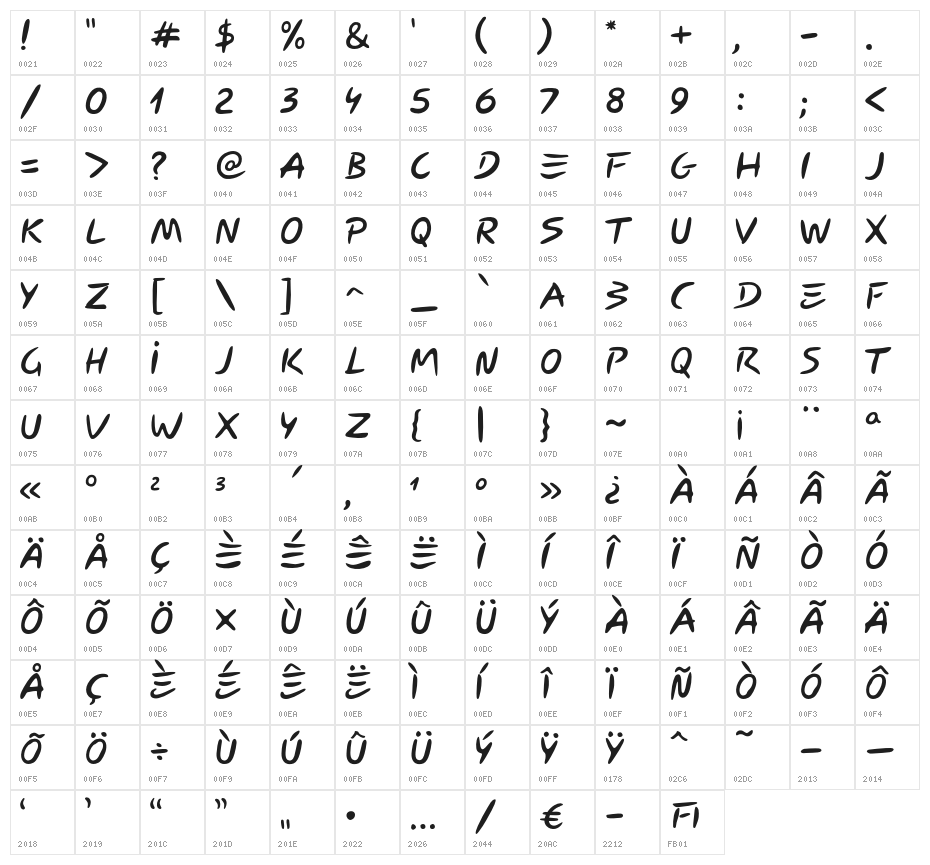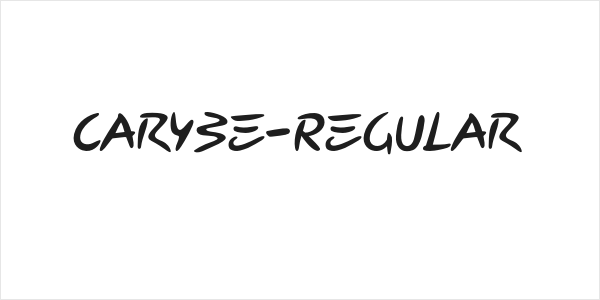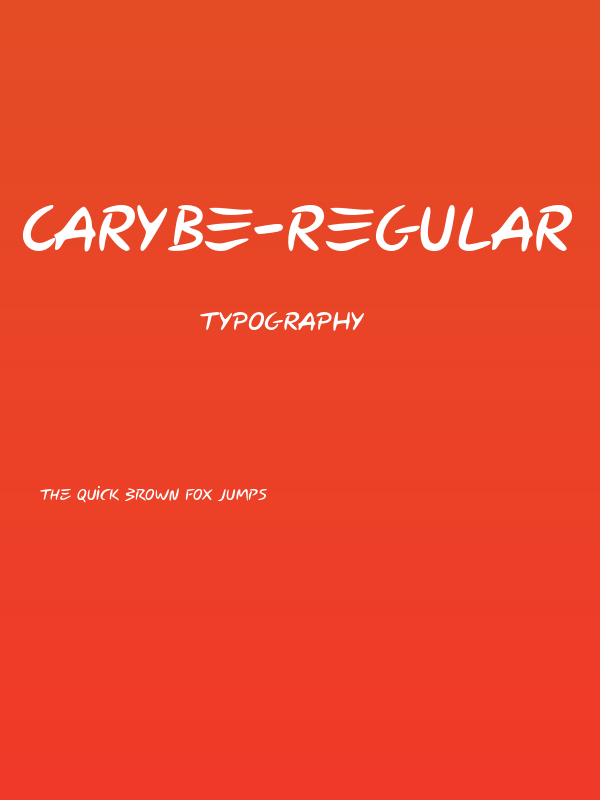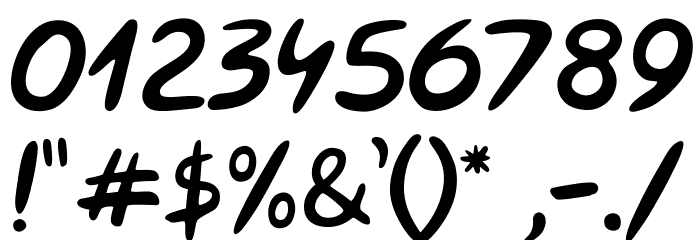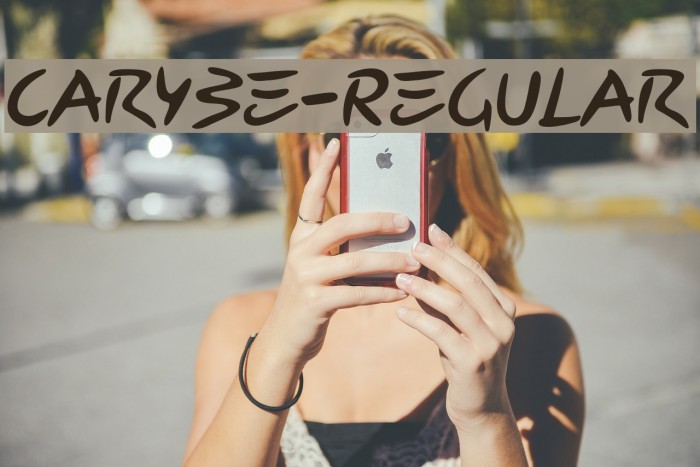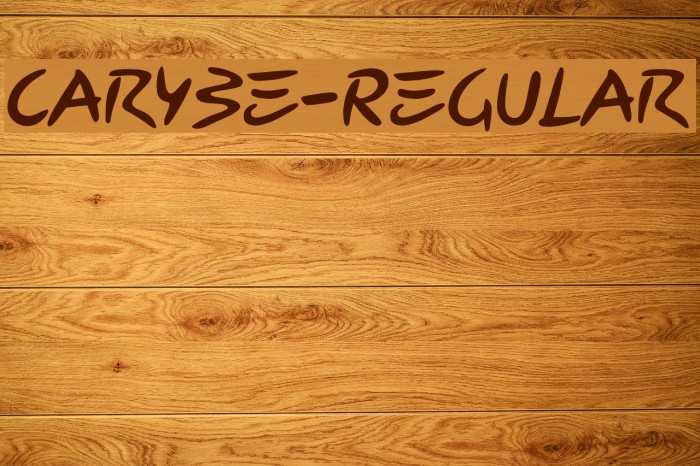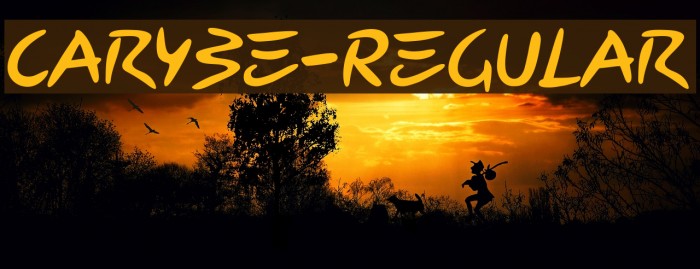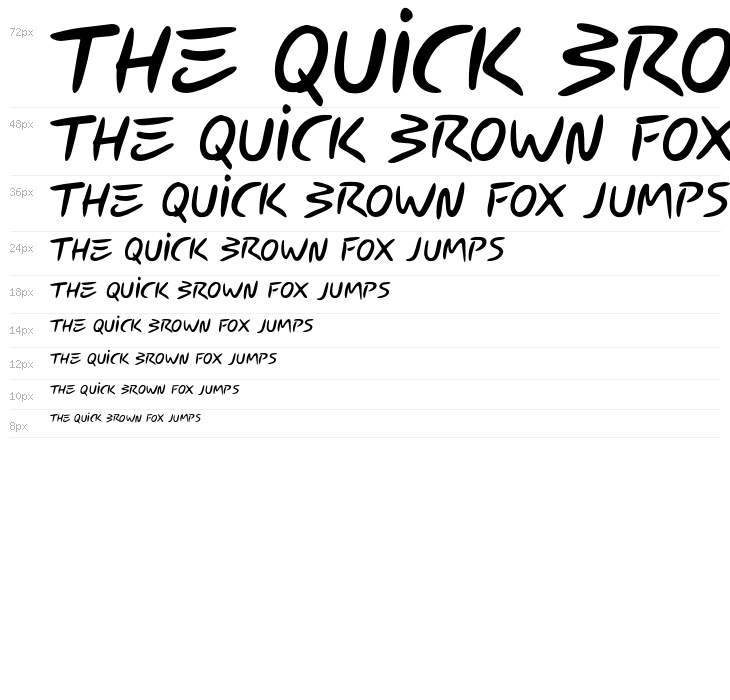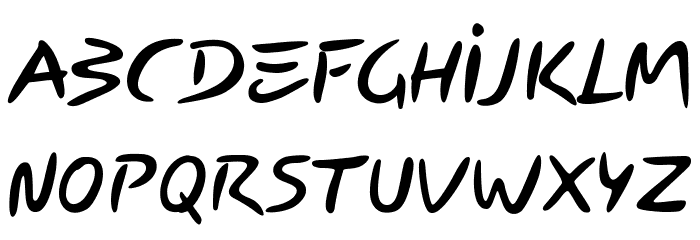
Carybe-Regular Font
Carybe-Regular Description
This font features a dynamic and energetic script style with a hand-drawn appearance. The letters are bold and slightly slanted, giving a sense of movement and fluidity. The strokes are thick and consistent, with rounded edges that add a friendly and approachable feel. The uppercase and lowercase letters maintain a cohesive look, while the numbers and special characters are designed to match the overall style. This font is ideal for projects that require a personal touch or a creative flair, such as invitations, posters, or branding materials.